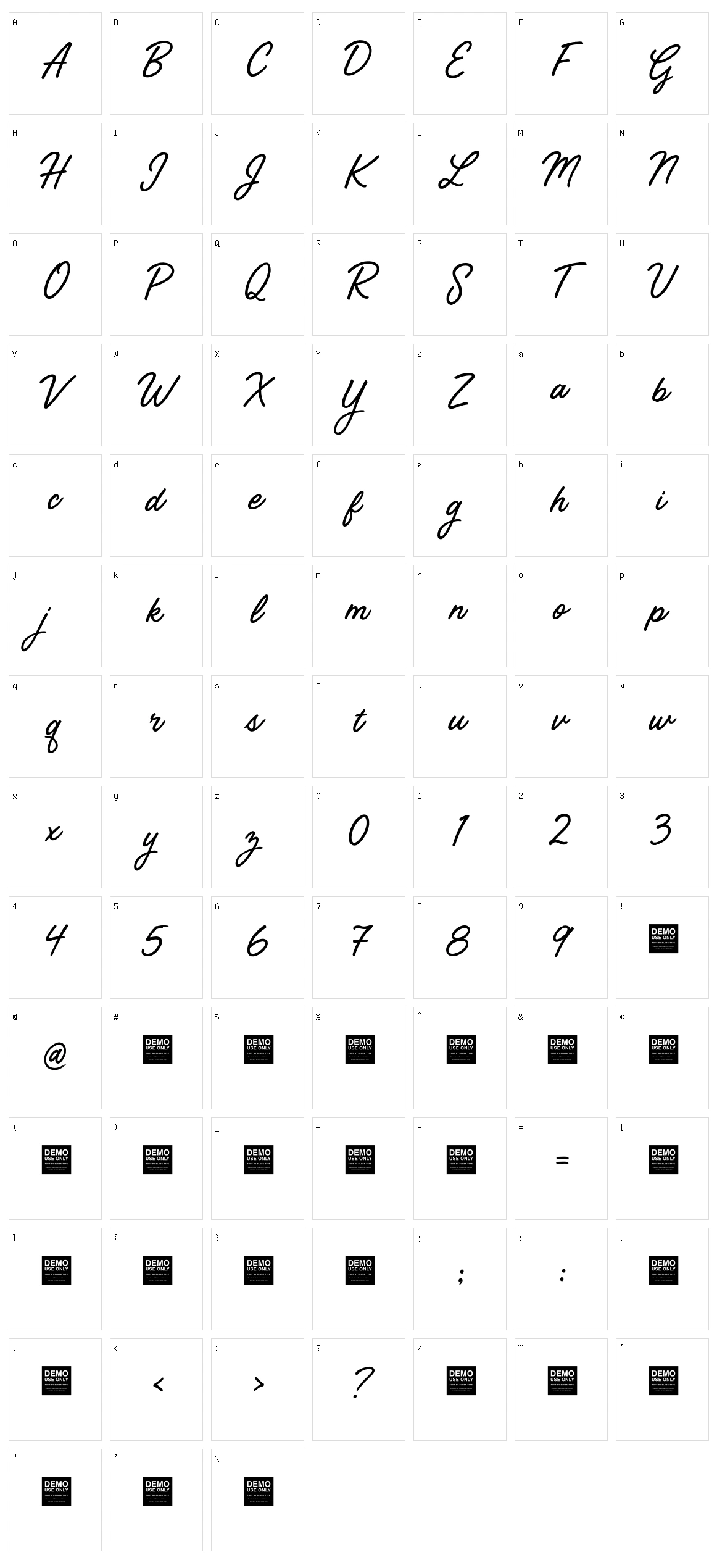
The free font Street Magic is carefully designed by BLKBK Fonts, showcasing a thoughtful balance of creativity and usability and falls under the Script font style. When you download the ZIP file, it contains only 52.04 KB of font files, making it lightweight and quick to download. Please review the license details below to understand permitted usage and distribution rights. If license information is not available, we recommend using this font for personal projects only or contacting the author directly for commercial usage permissions.